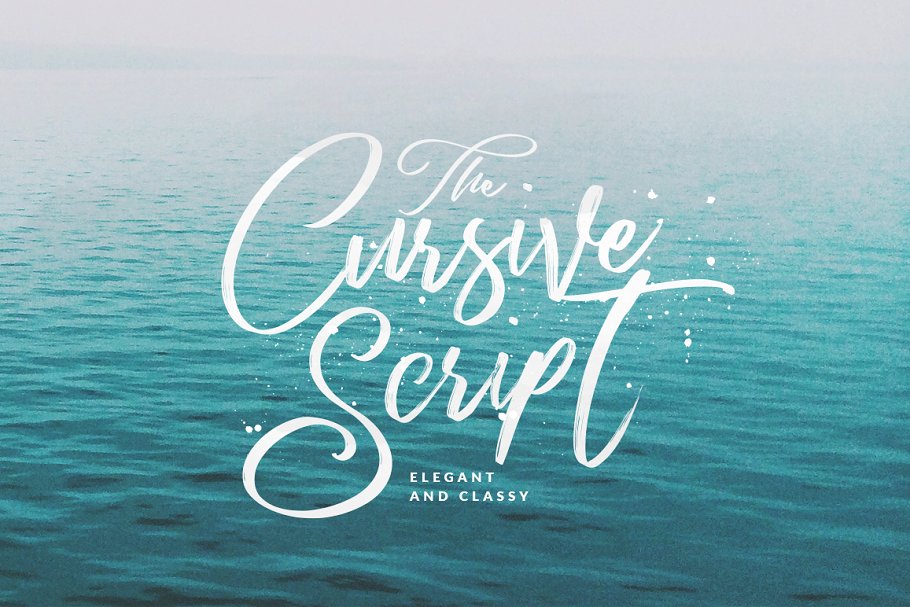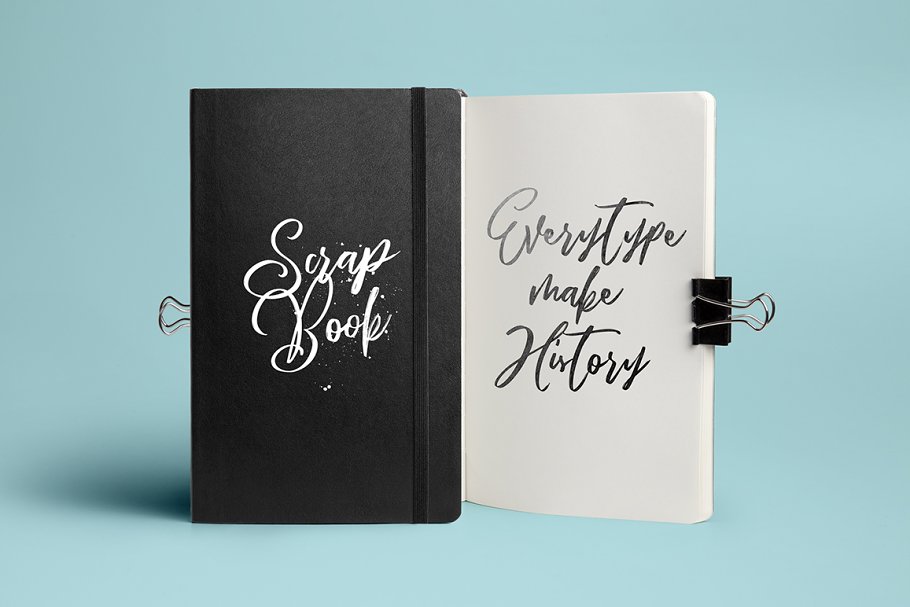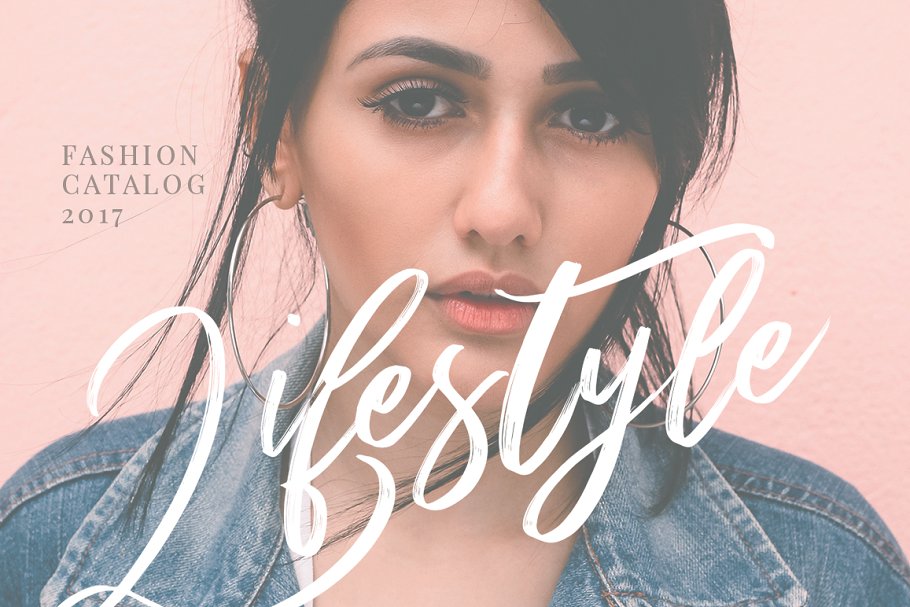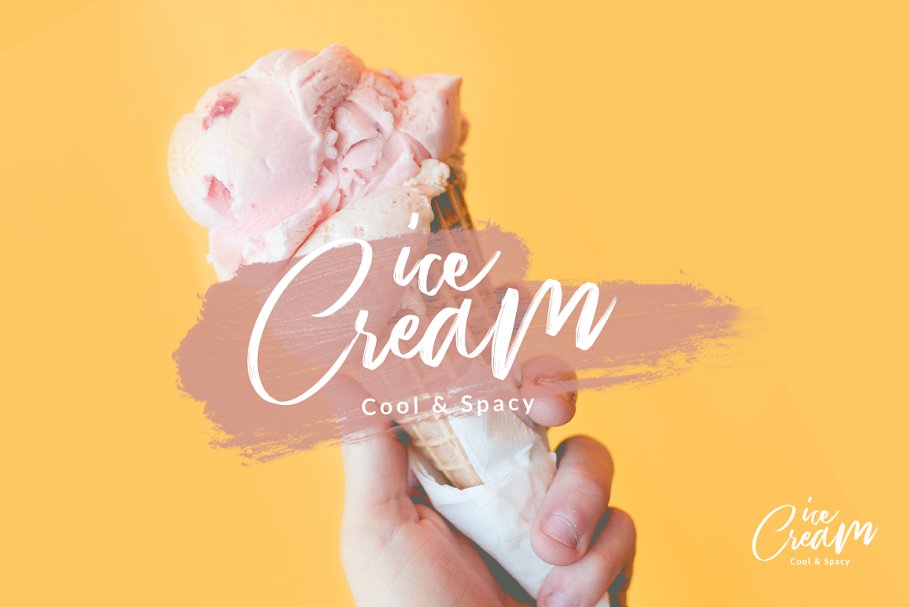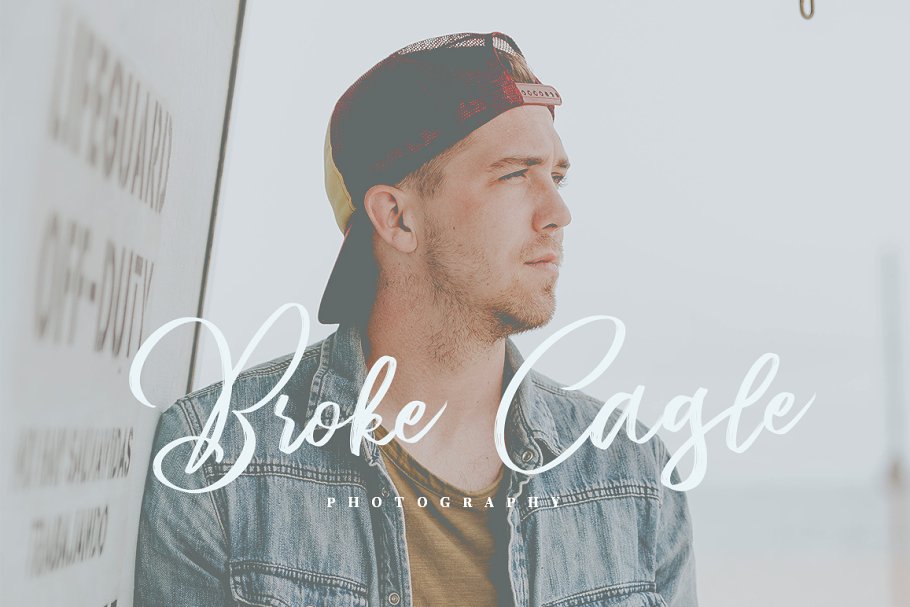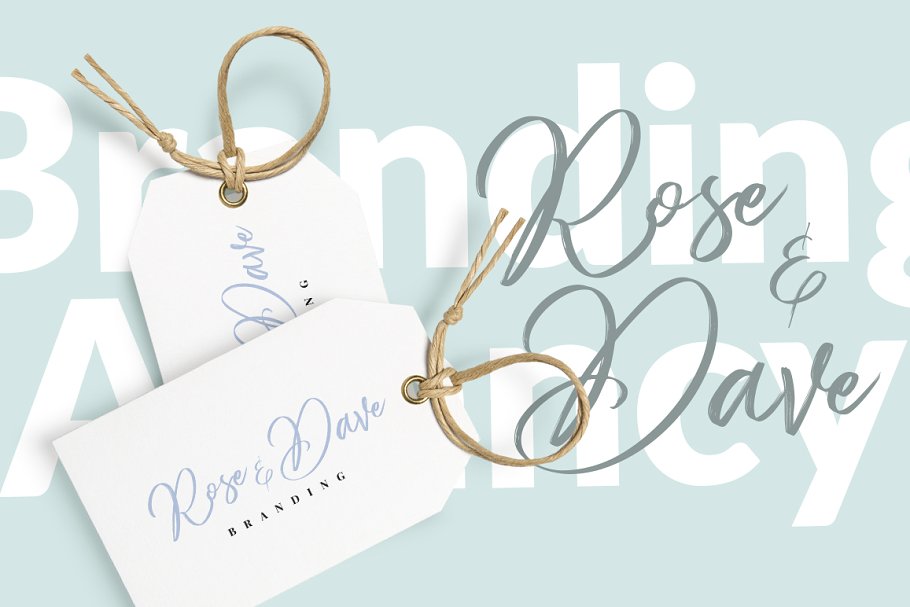
About the Cursive Script Handmade Brush
Best Seller Font :Significent Wild Brush : https://crmrkt, com/A53kwmCursive Script, with authentic dry brush imperfections, and a very bouncy baseline It has a perfectly paired complimentary marker font , and a super handy set of bonus Swash, Ideal for logos, handwritten quotes, product packaging, header, poster, merchandise, social media & greeting cards